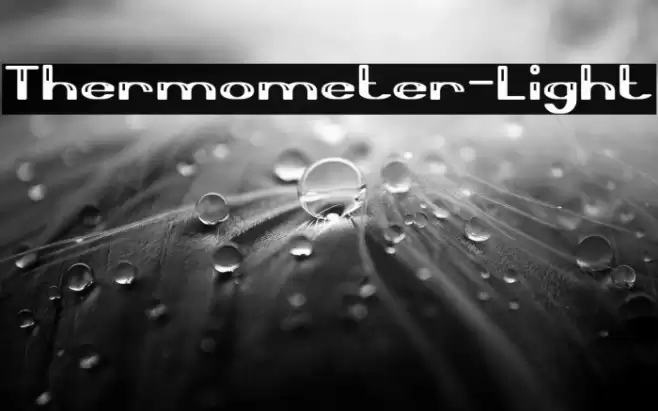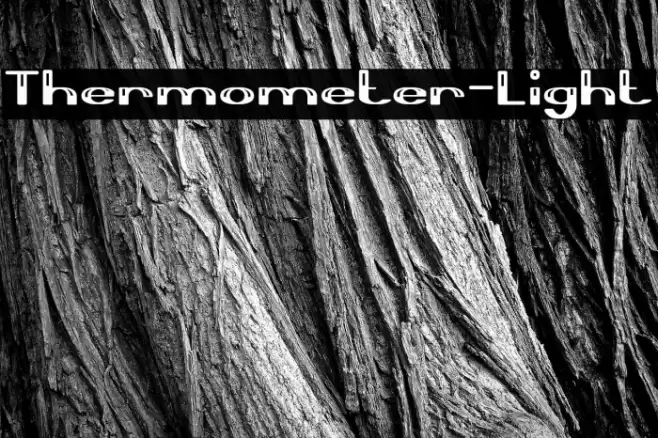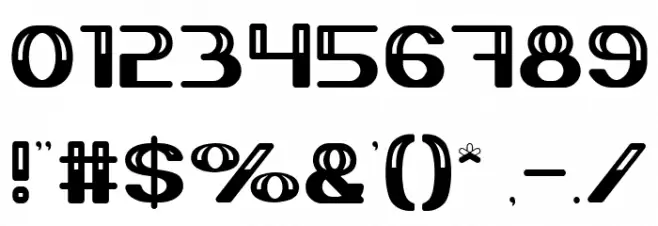
Thermometer-Light Font
Thermometer-Light Description
This font features a unique blend of geometric and rounded elements, creating a modern and playful appearance. The uppercase letters are bold and structured, with a slight curvature that adds a touch of softness. The lowercase letters maintain a consistent style, with rounded edges and a balanced weight that complements the uppercase. Numbers are designed with a similar aesthetic, ensuring readability and consistency. Special characters are crafted to match the overall style, making this font versatile for various applications. The design is both eye-catching and functional, suitable for creative projects.
A modern, playful font with geometric and rounded elements, perfect for creative projects from Uncategorized fonts.
- Proposed Projects: Ideal for branding, advertising, posters, and digital media where a modern and playful look is desired.